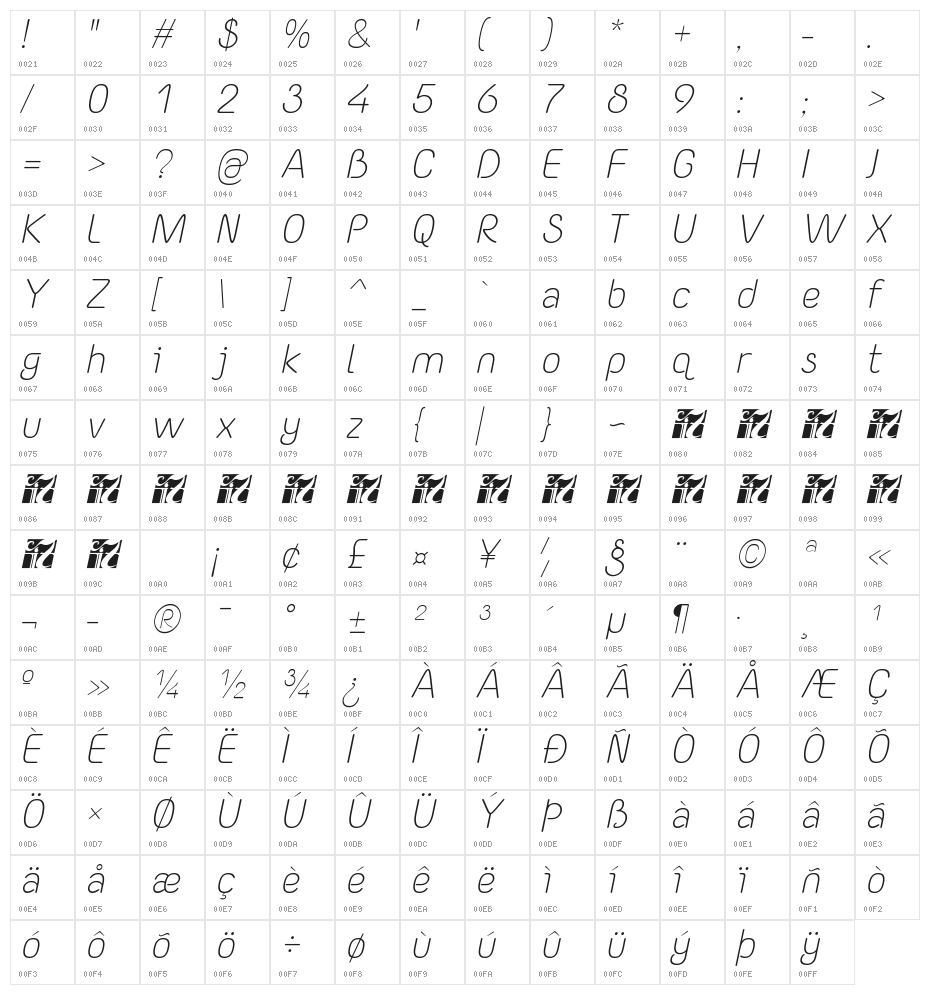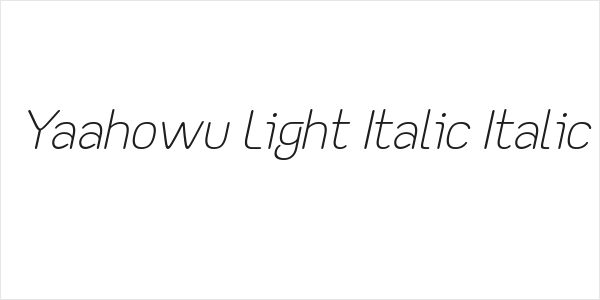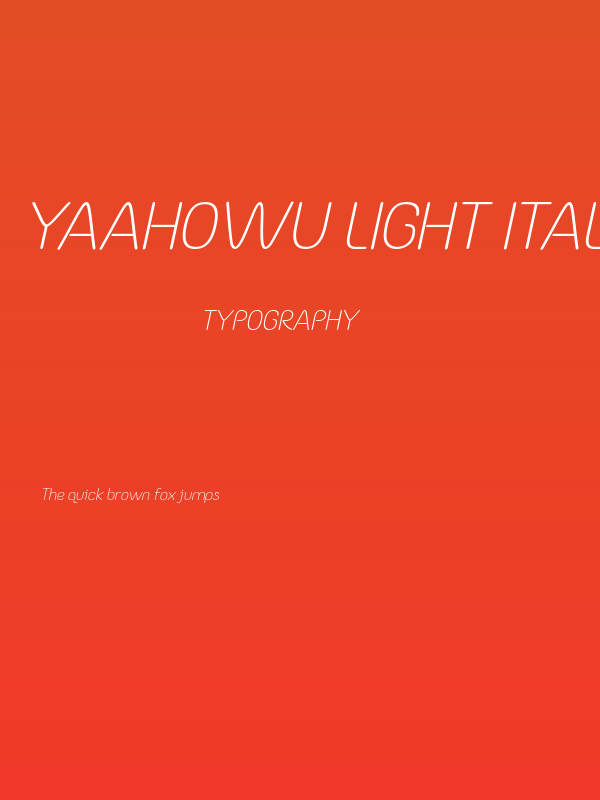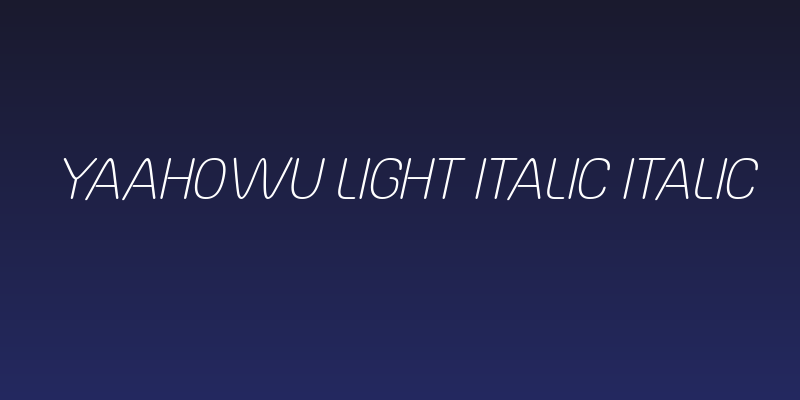
Yaahowu Light Italic Italic Font
Yaahowu Light Italic Italic Description
This font features a sleek and modern design with a light and airy appearance. The characters are slightly slanted, giving it an italicized look that adds a sense of motion and elegance. The strokes are consistent and smooth, with rounded edges that contribute to its friendly and approachable feel. The spacing between characters is balanced, ensuring readability while maintaining a stylish aesthetic. This font is versatile, suitable for a variety of applications where a contemporary and sophisticated touch is desired.